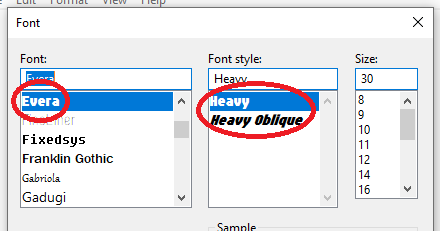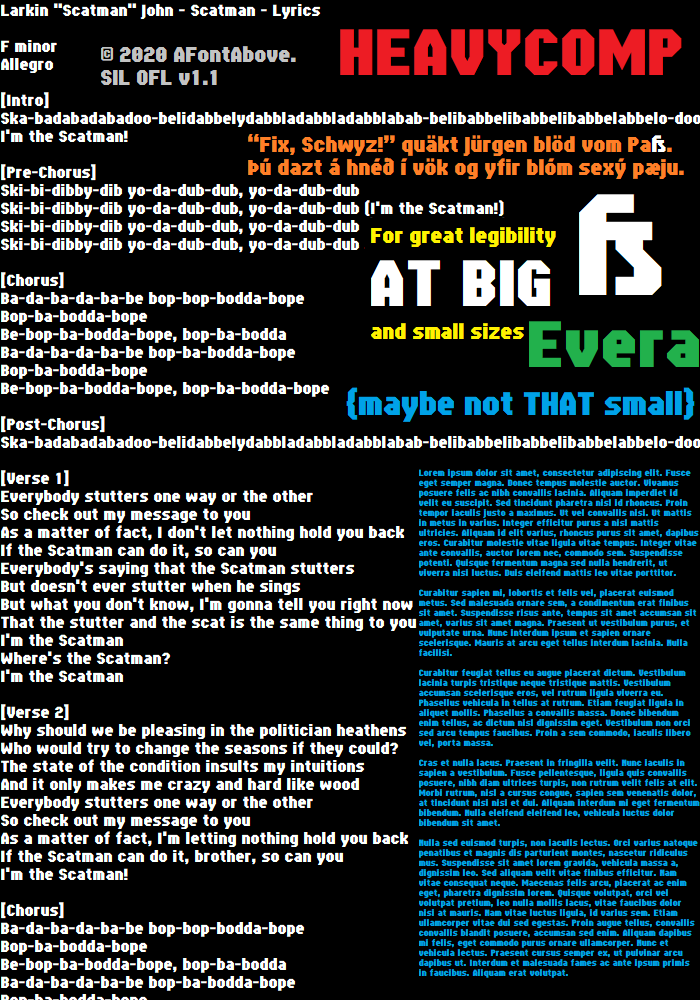
I just got burnt out of extending this; I have now submitted my entry. Sample coming very, very soon.
Congratulations! FontStruct Staff have deemed your FontStruction worthy of special mention. “Evera Heavy” is now a Top Pick.
Made some pretty major modifications after seeing this again with fresh eyes:
→Lengthened the slashes to match the height of the brackets and vertical bar
→Changed the connection between curves and straight lines (as in abdgmnpqru) and fixed an inconsistency with these from Basic Latin to Latin-1 Supplement (do these “connections” have a proper name?)
→Added superscripts, vulgar fractions, and “¦”
→Removed the single “ỵ” character that I created while messing around; it doesn't belong yet
→Adjusted a few more characters [MNQ7()^`{}~ð]